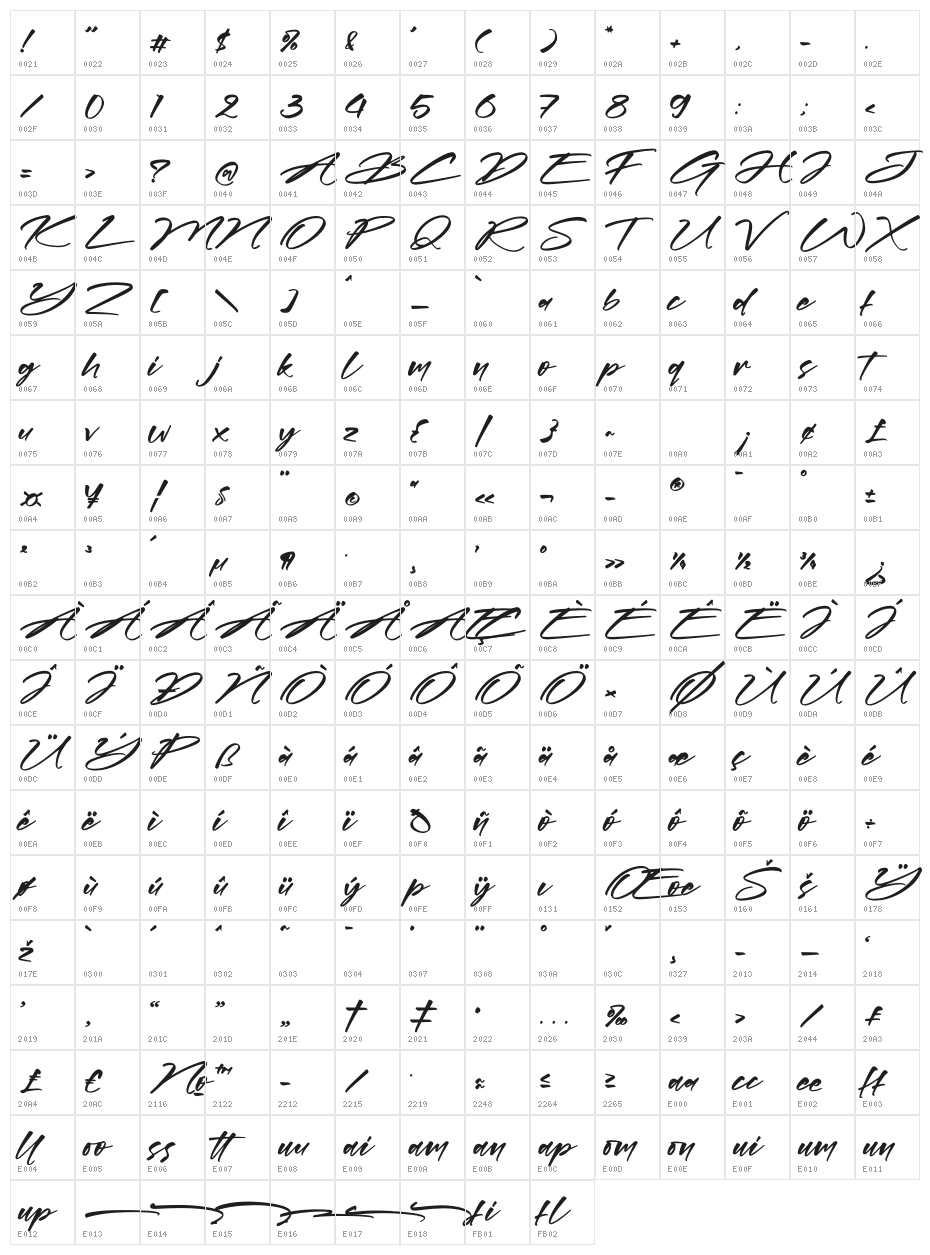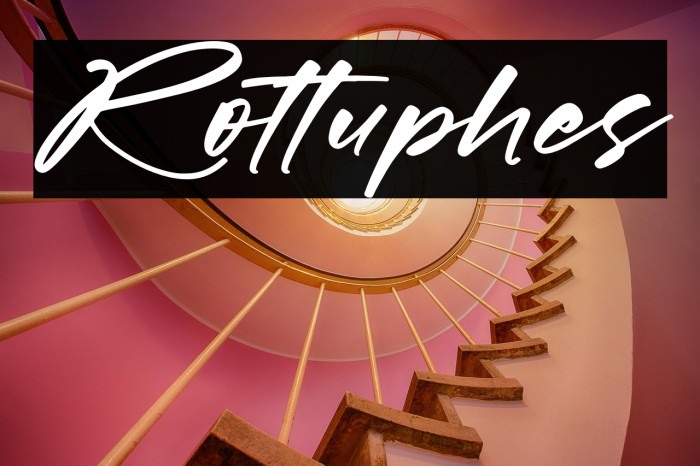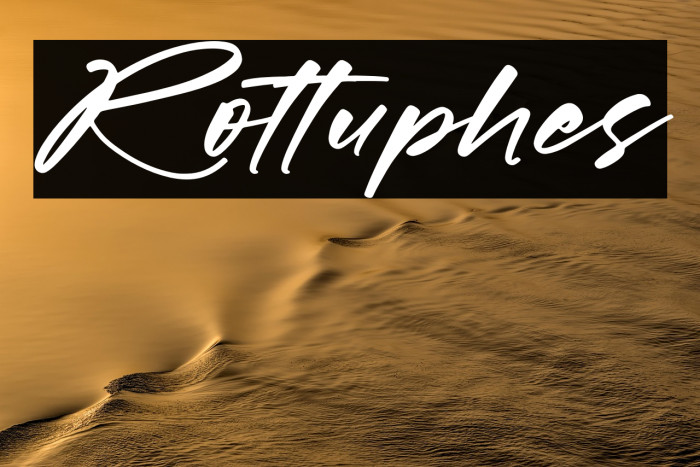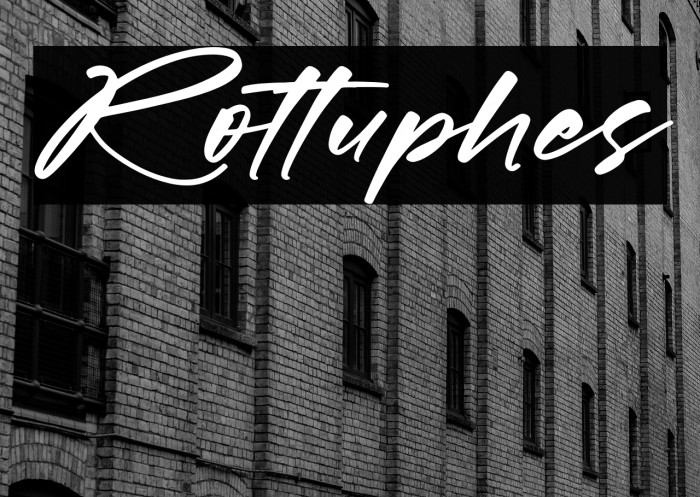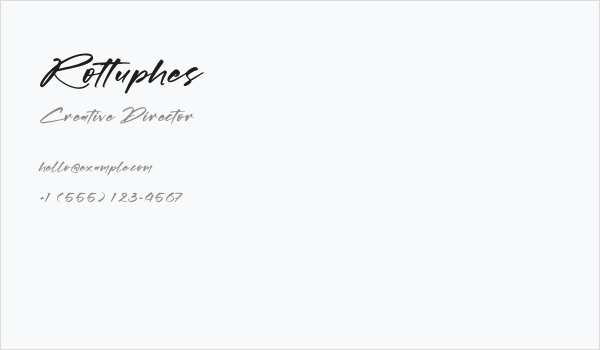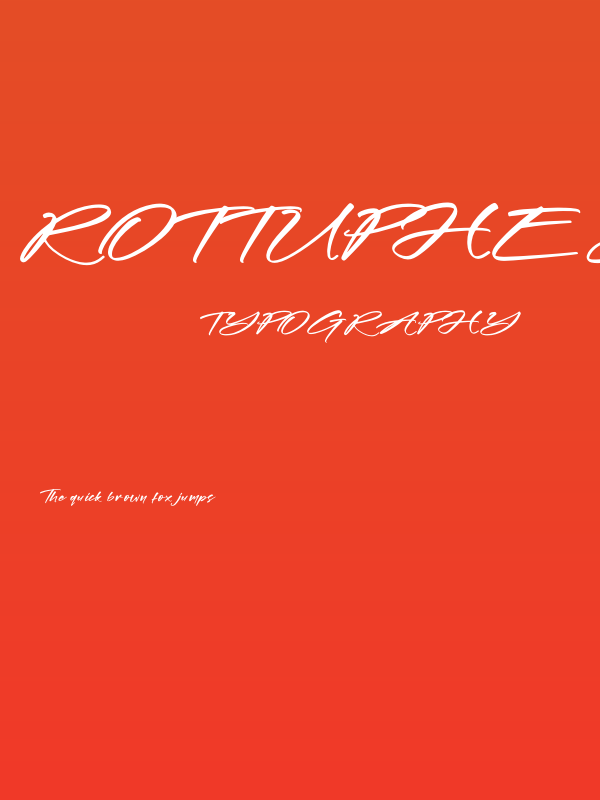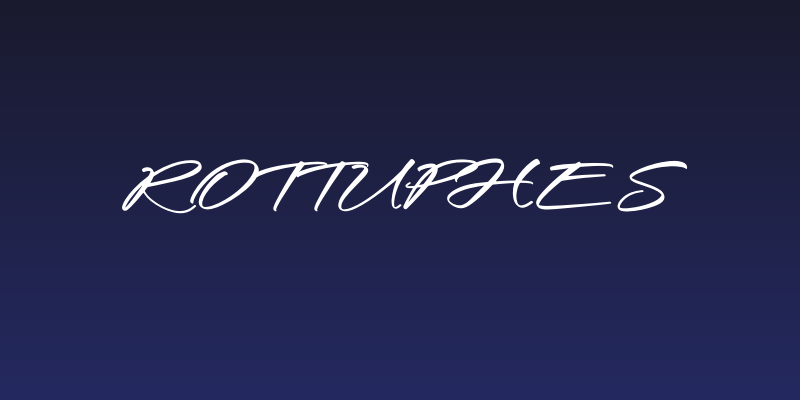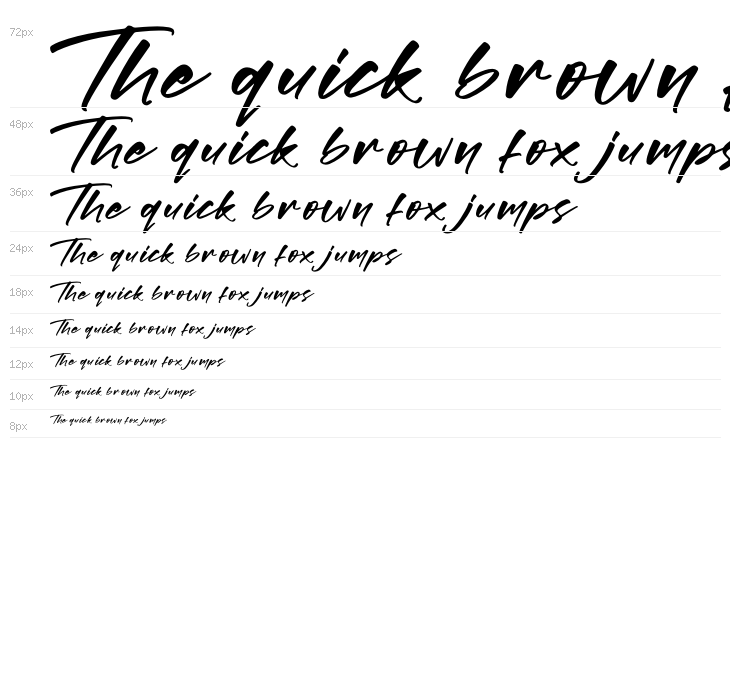
Rottuphes Font
Rottuphes Description
This font exudes a dynamic and expressive style, characterized by its fluid and cursive script. The uppercase letters are elegantly connected, while the lowercase letters maintain a consistent flow, enhancing readability. The numerals and special characters are crafted with the same attention to detail, ensuring a cohesive look across all elements. The strokes vary in thickness, providing a medium contrast that adds depth and interest to the design. This font is ideal for projects that require a personal touch, such as invitations, greeting cards, or branding materials that aim to convey elegance and sophistication.
| Use Case | Logos, Headlines, Invitations |
| Proposed Projects | Ideal for invitations, greeting cards, branding materials, and elegant designs. |